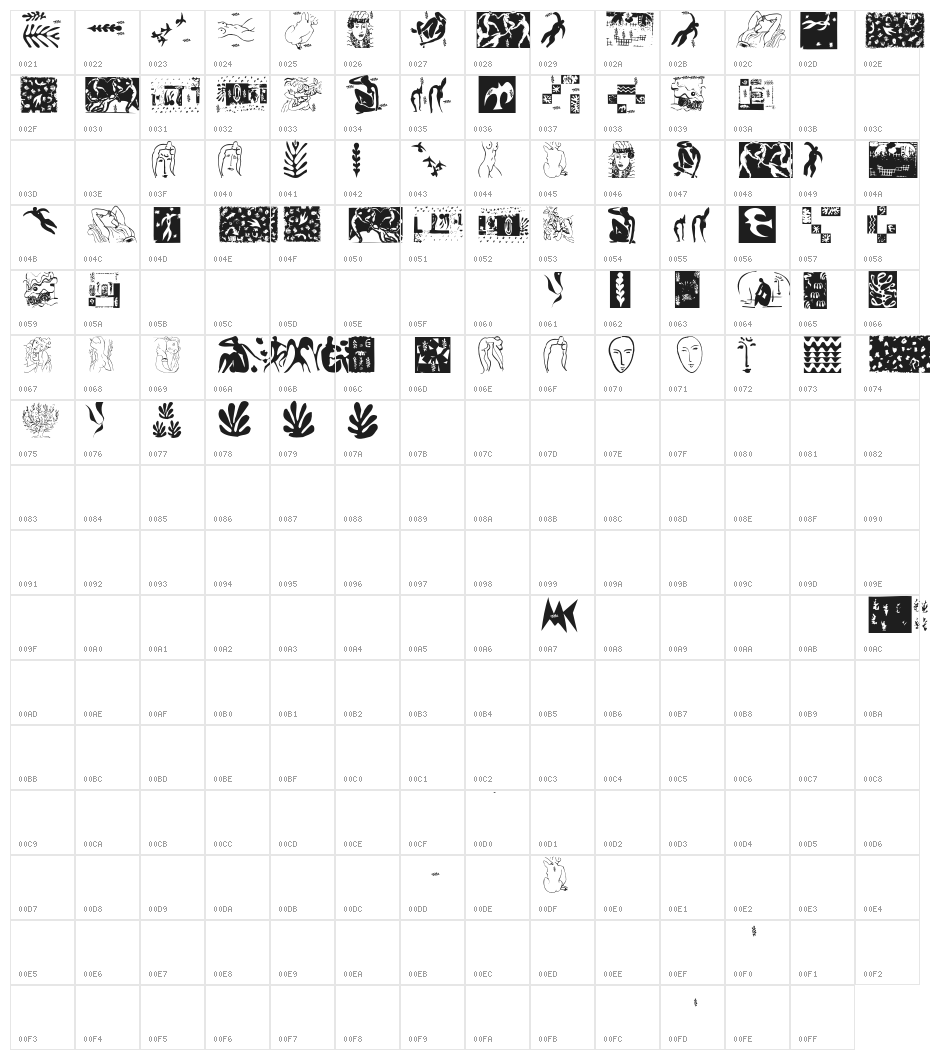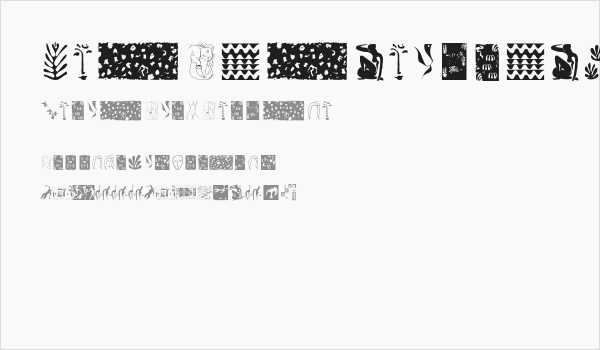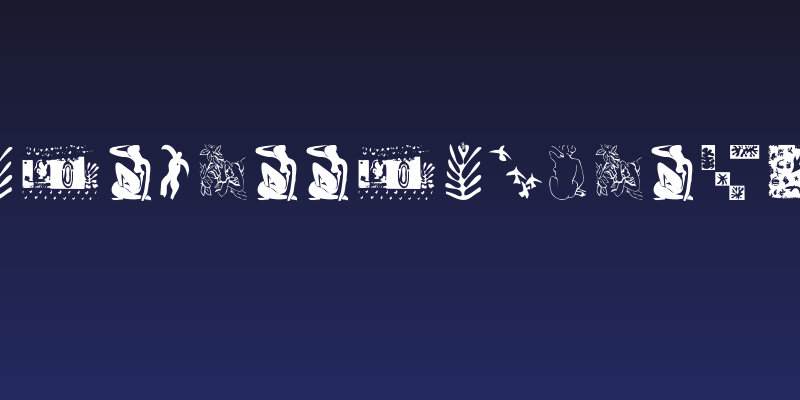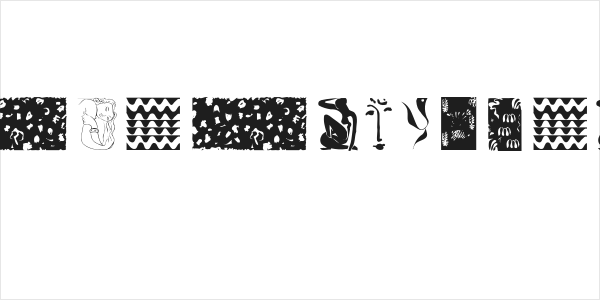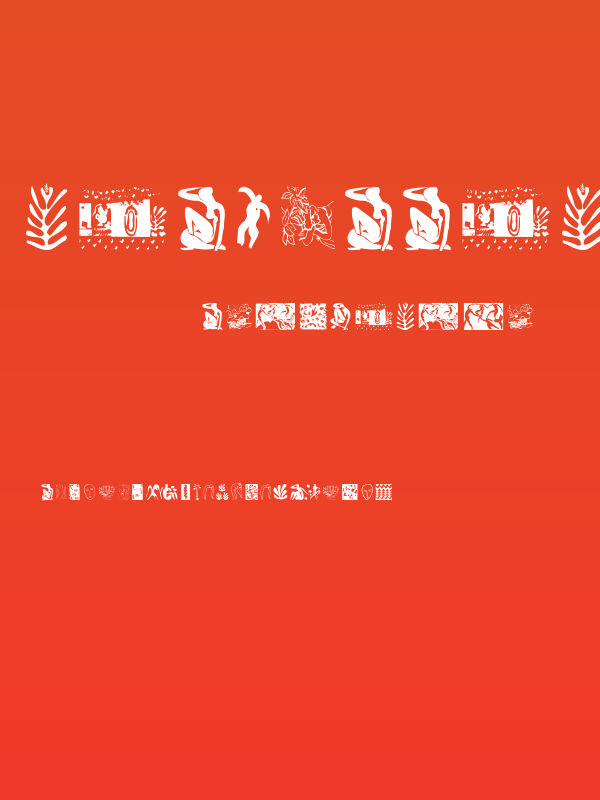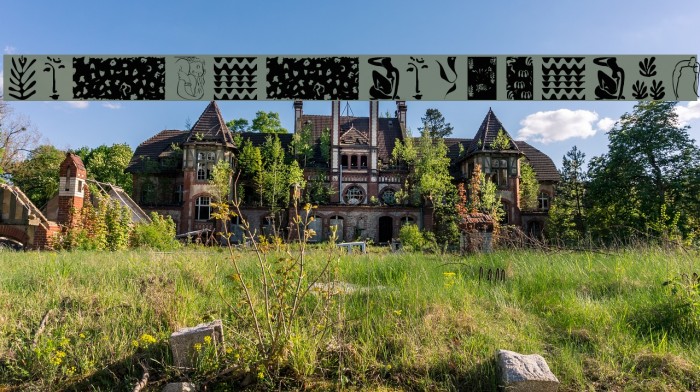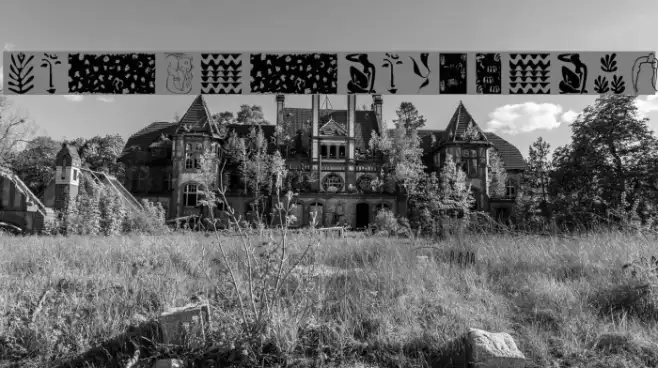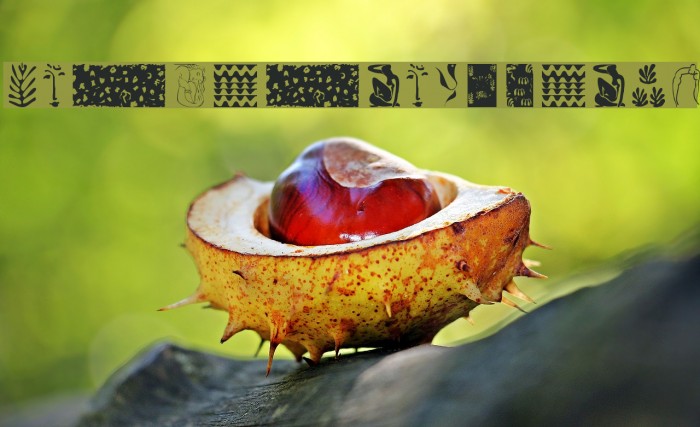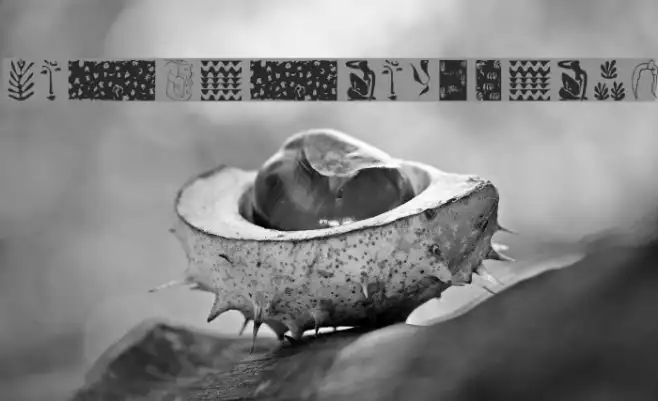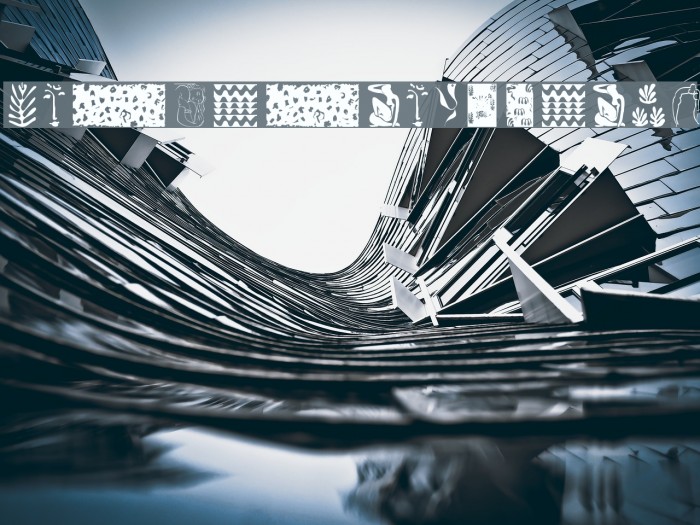
ArtistTracesTwo Font
ArtistTracesTwo Description
A decorative display font featuring abstract, hand-drawn illustrations inspired by modernist and cut-out art. The glyphs are composed of organic shapes, stylized human figures, faces, plants, and patterns, rendered in both solid black and outlined forms. The style is highly artistic, with each character acting as a unique miniature artwork rather than a traditional letterform.
| Overall Style | Decorative, Modern, Artistic |
| Use Case | Logos, Headlines, Posters, Artistic projects |
| Proposed Projects | Art posters, gallery invitations, book covers, creative branding, editorial spreads, decorative headings. |